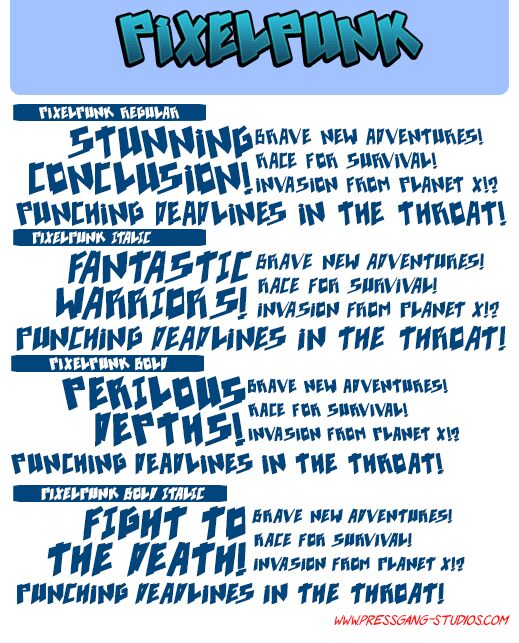
Pixelpunk Font
Pixelpunk from Press Gang Studios is a free comic display font with a loud, cut-paper edge. Its angular capitals lean and jolt, giving the line an intentionally uneven silhouette. Sharp wedges and openings make the lettering look improvised.
It can turn a game title or concert poster into part of the artwork rather than a simple caption. The rough geometry also fits skate merchandise and comic publishing, especially for rebellious or slapstick themes. On snack packaging, the jagged forms can echo torn labels and hand-cut graphics.